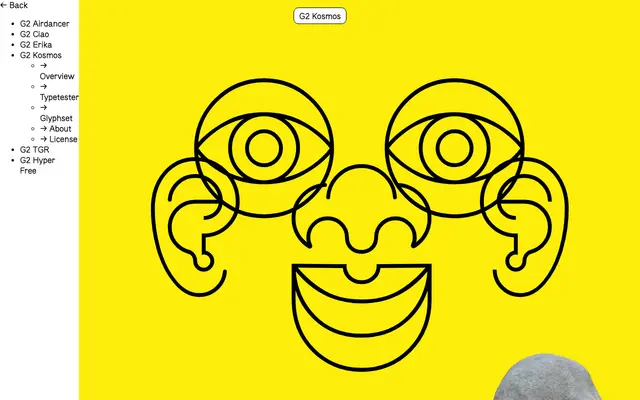
G2 Kosmos
Gruppo Due · Moritz Appich, Bruno Jacoby · 2019
A monoline geometric sans built on the same grid system artist Wolfgang Schmidt used for his Lebenszeichen symbols, first drawn as a 2019 diploma project and since redrawn for wider commercial release.
The letterforms follow a strict geometric grid but bend away from it where optical smoothness demands, giving the face a more fluid quality than pure constructed sans designs. It comes in two cuts, Regular and Extended, with stylistic alternates that revert to the more rigid grid-faithful forms as a nod to the original diploma design. Coverage is broad across Latin Extended, with tabular figures, fractions, ordinals and a range of currency symbols included.
A monoline geometric sans built on a strict grid system, with deliberately smooth letterforms that depart from the grid where needed for optical flow. Its construction logic is closely related to symbol-making rather than calligraphic tradition.